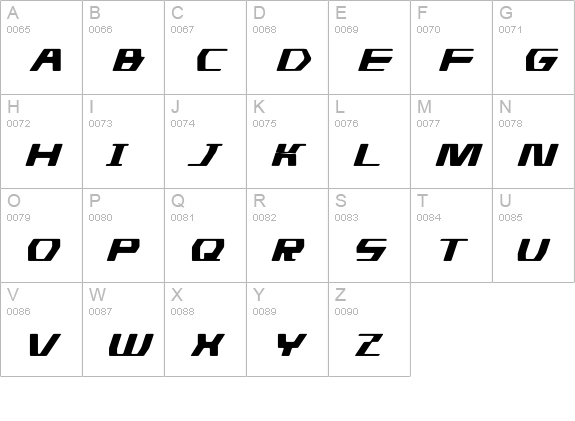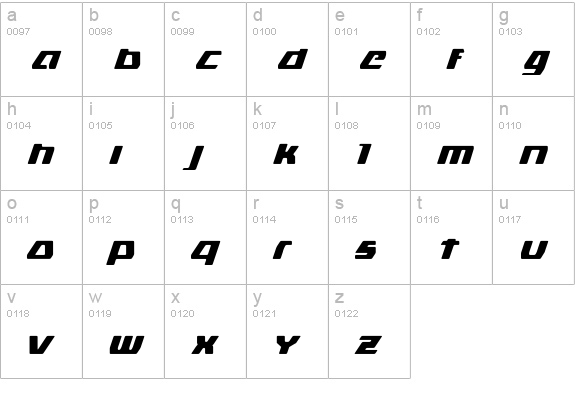
DS man Font Details
DS Man font is a sleek and modern typeface that exudes confidence and professionalism. With its clean lines and bold strokes, this font is perfect for making a statement in any design project. Whether you're working on a logo, poster, or website, DS Man font will bring a touch of sophistication to your work. Best of all, DS Man font is available for free download at FontsMarket.com. This means you can easily add this stylish font to your collection without any cost. Don't miss out on the opportunity to enhance your designs with the timeless elegance of DS Man font. Download it today and elevate your projects to the next level.